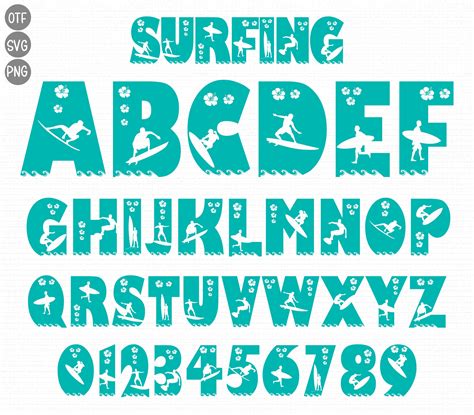
Surfing Fonts: The Basics Of Choosing The Right Typeface
Surfing is a popular pastime amongst those looking to catch a wave and relax and those who want to catch a wave and perform some epic tricks. But many people don’t realize that the font you choose for your surfboard can have a huge effect on the way you look and feel while out on the waves. That’s why it pays to take some time to research the different types of fonts available and which ones will work best for your individual needs.
When it comes to surfing fonts, there are a few common types that you should be aware of. The first is a script typeface, which is a fancy, ornate font that looks great on a surfboard or on a t-shirt. The second type of font is a sans serif font, which is a more basic, easy-to-read typeface. And lastly, there is a decorative font, which is a more intricate, intricate font that is designed to stand out.
When it comes to choosing the right font for your surfboard, there are several factors to consider. First, you should think about the size of the font. If you are looking for a bold, eye-catching font, then you should choose a larger font size. If you are looking for a more subtle font, then you should choose a smaller font size. You should also consider the style of the font, as some fonts are better suited for certain surfing styles than others.
In addition to choosing the right font, you should also think about the material that the font is made from. Most font types are available in a variety of materials, including vinyl, polyester, and polyurethane. It is important to choose a material that is both durable and easy to clean. You should also consider the design of the font, as some fonts are more intricate and difficult to read than others.
Tips for Choosing a Font for Your Surfboard
When it comes to choosing the right font for your surfboard, there are some important tips to follow. First, consider the size of the font to ensure that it is readable and visible from further away. You should also think about the style of the font, as some fonts are better suited for certain surfing styles than others. Finally, you should also consider the material of the font, as some fonts are more durable and easier to clean than others.
Once you have narrowed down your choices, you should test out the font on the board to make sure that it looks good and fits the design of your board. Test the font on a piece of paper or a whiteboard before you commit to it. This will help to ensure that you get the right font for your board and that you love the look of the font.
Choosing the right font for your surfboard is an important decision, and it pays to take the time to research and compare the different types of fonts available. Doing so will ensure that you get the right font for your board and that you love the look of the font when out on the waves.